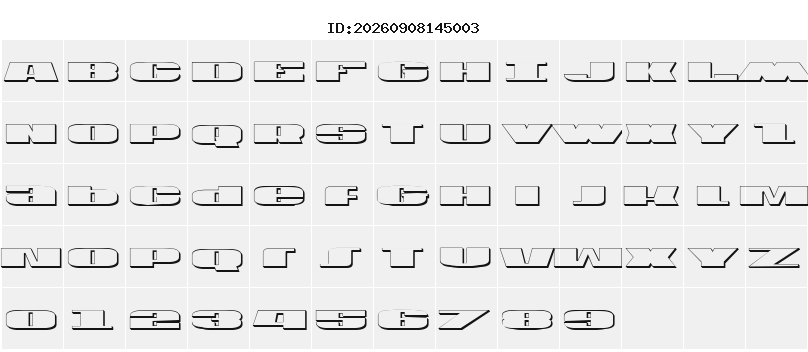
U.S.A. Shadow Preview
• Font Name: U.S.A. Shadow
• Font Style: Shadow
• Full Font Name: U.S.A. Shadow
About U.S.A. Shadow.ttf
U.S.A. Shadow.ttf is a modern, elegant sans-serif font designed for ultimate readability and visual harmony. Perfect for branding, headlines, web design, and print materials.